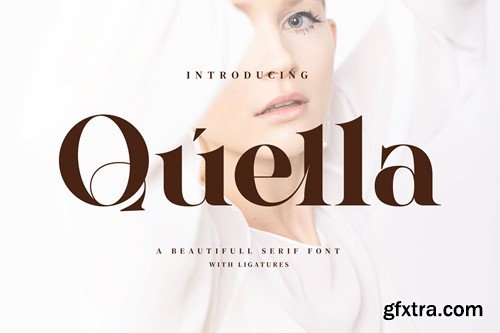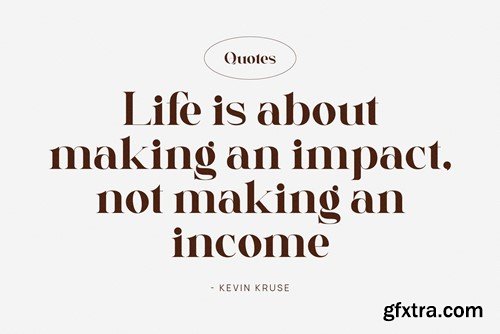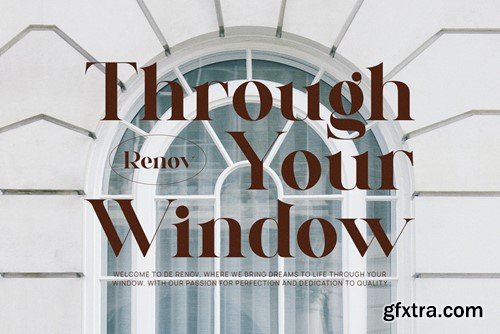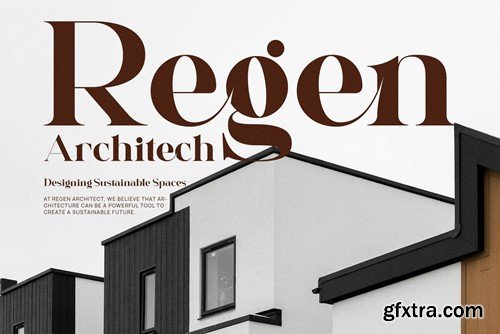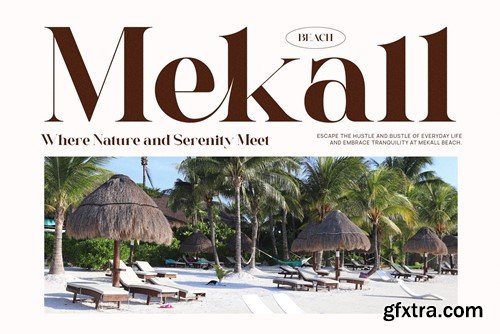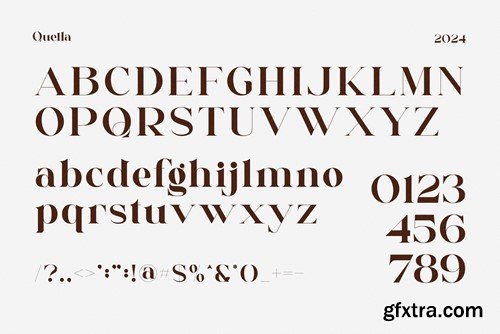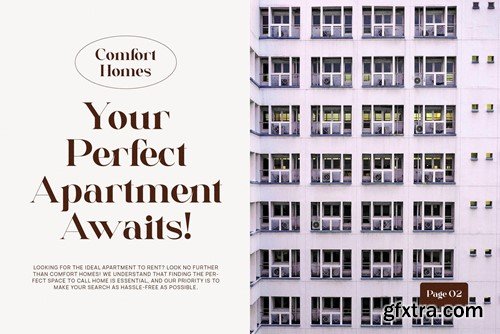
Quella - Beautifull Ligature Font
Quella Stylish Ligature Typeface, inspired by the famous minimalist logo perfect for the purposes of designing templates, brochures, videos, advertising branding, logos and more. What's Included : Accessible in the Adobe Illustrator, Adobe Photoshop, Adobe InDesign, even work on Microsoft Word. PUA Encoded Characters Thank You